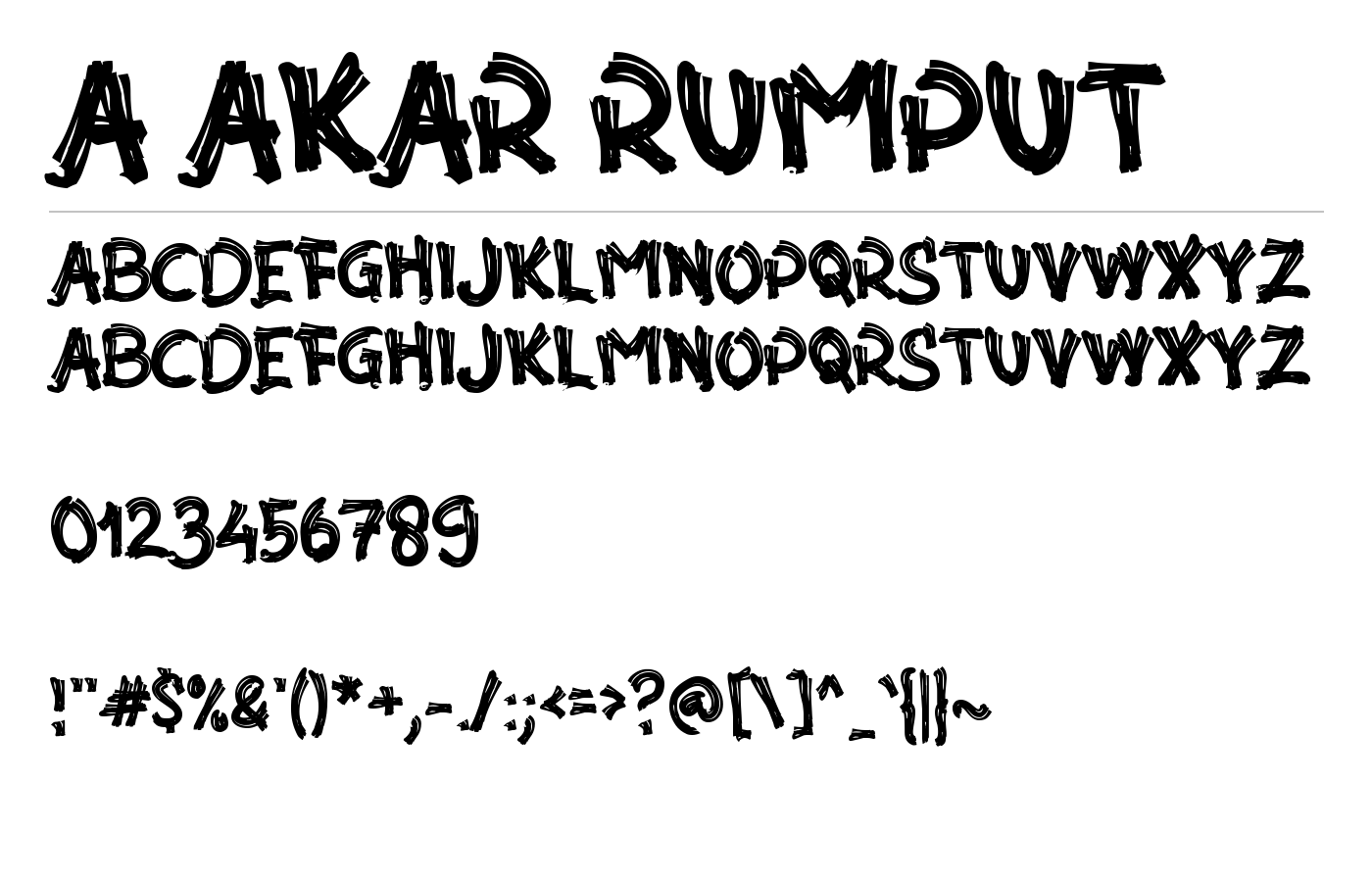
Akar Rumput is a bold, hand-drawn display font with a playful and rough texture, characterized by uneven strokes that give it an organic, graffiti-like feel. Its irregular, thick letterforms and quirky details make it ideal for casual, energetic designs such as posters, youth branding, or creative projects where a lively, informal personality is desired. This font works best in large sizes to highlight its unique style and add a fun, expressive touch to headlines or logos.
a Akar Rumput Font
About a Akar Rumput Font